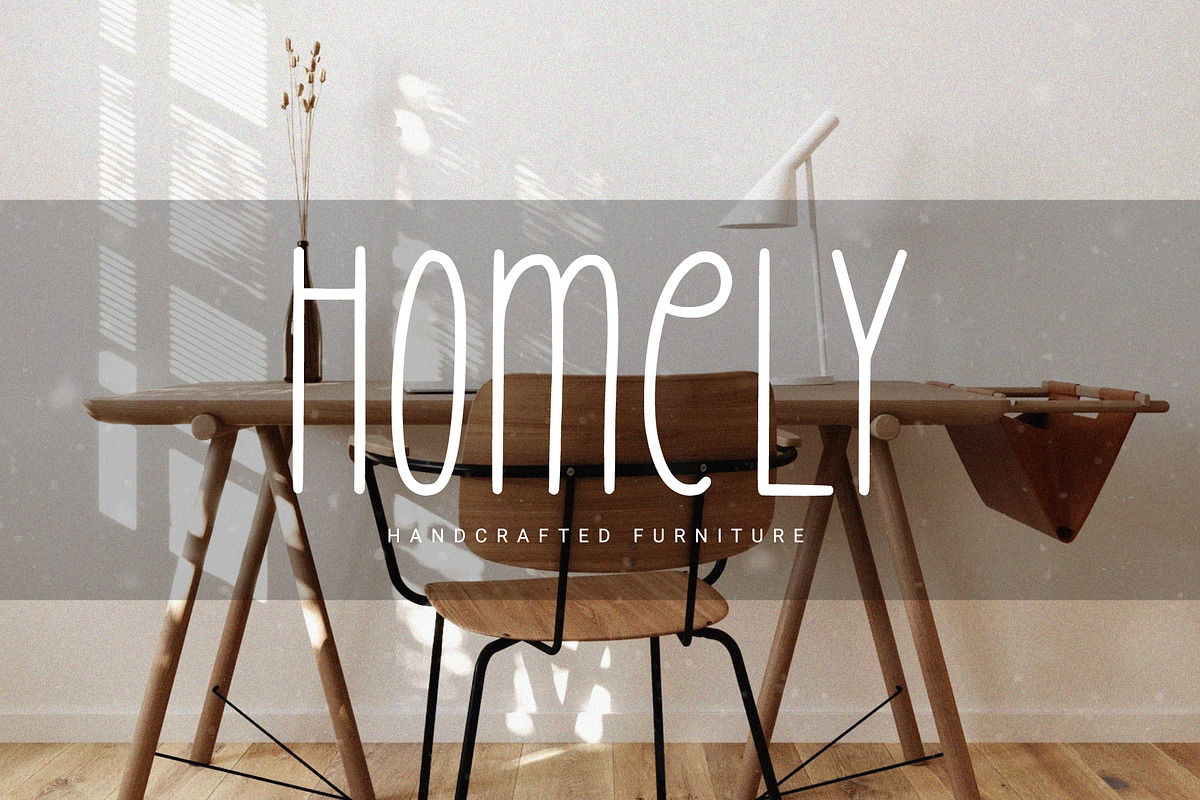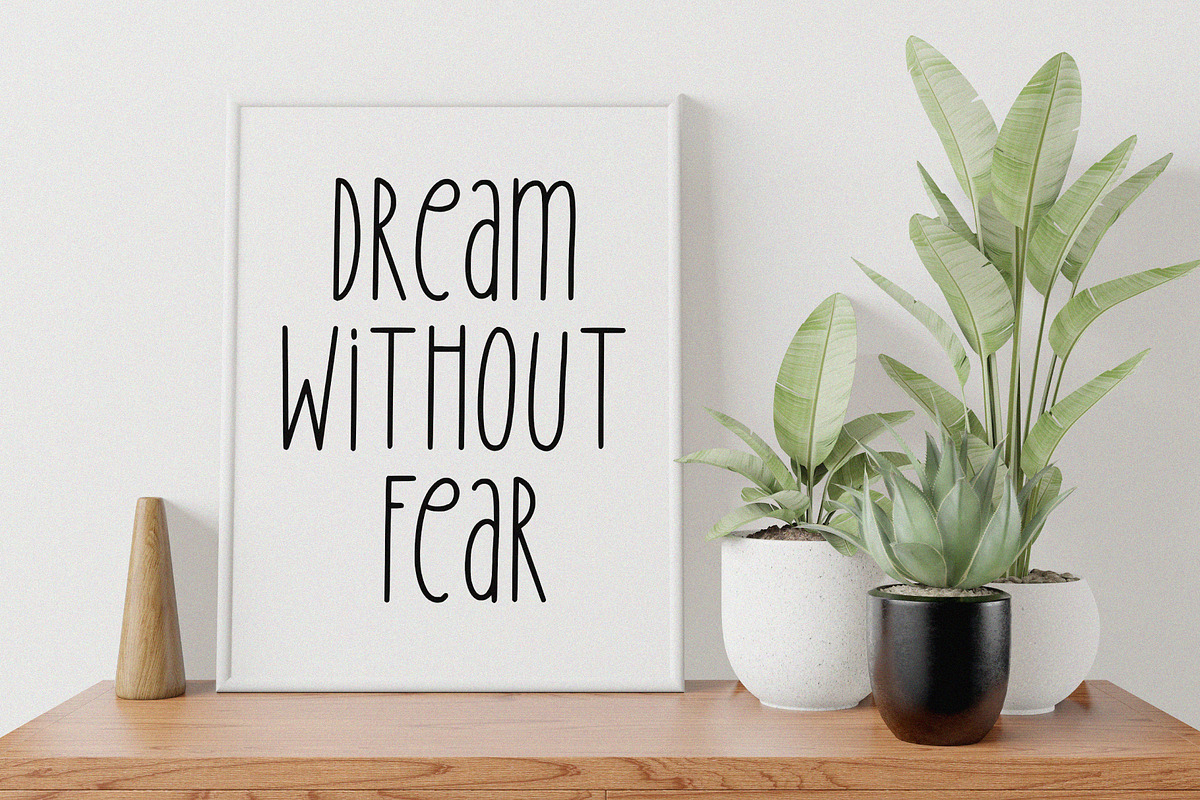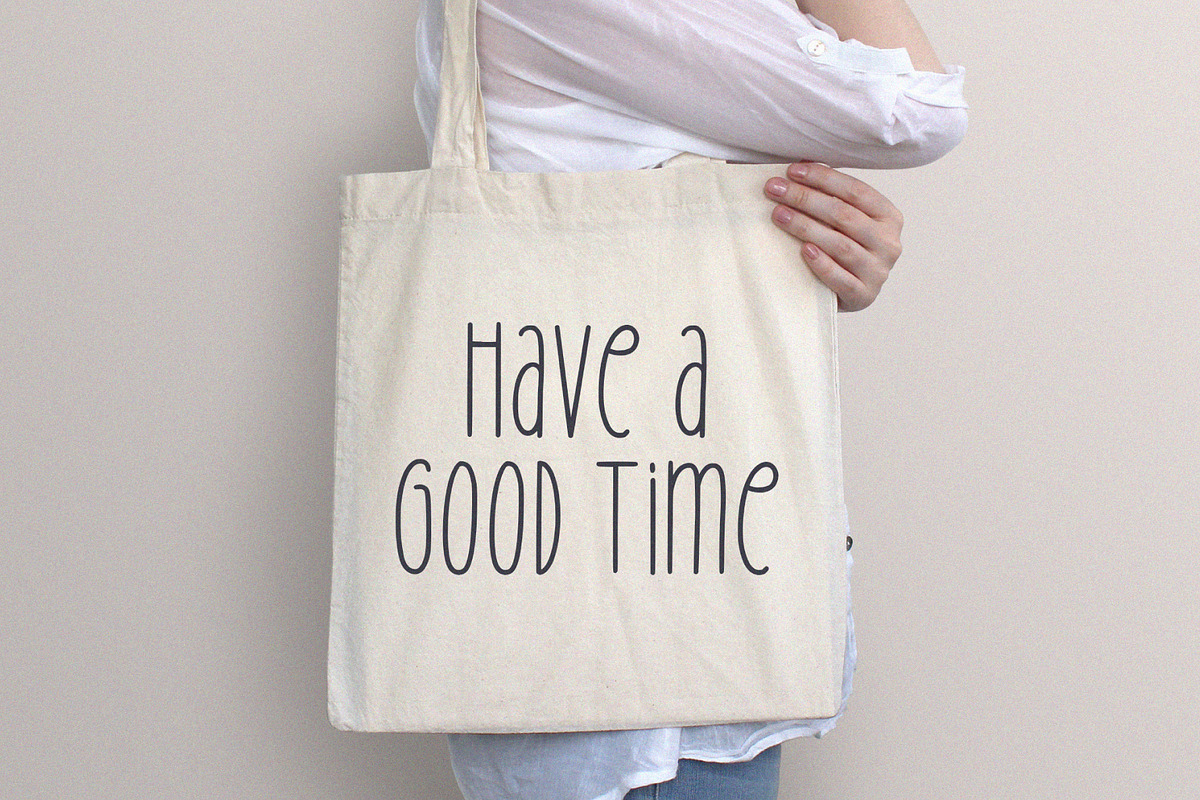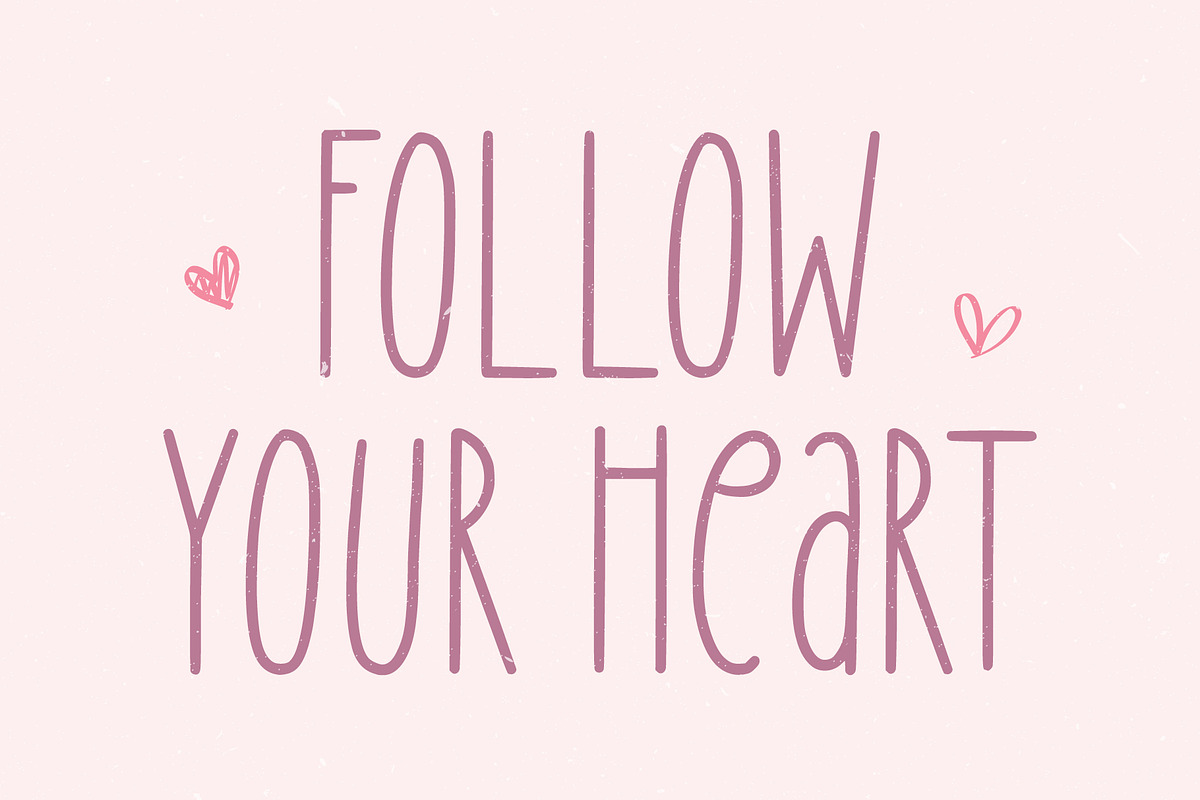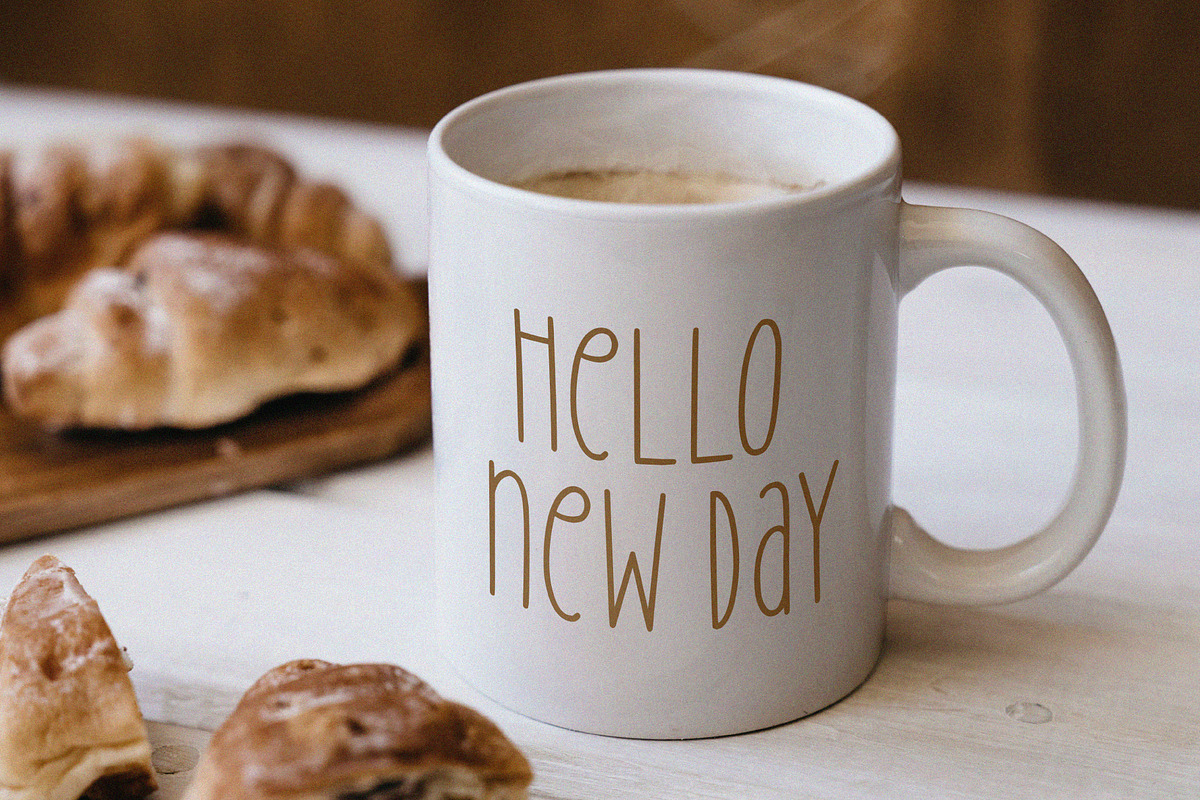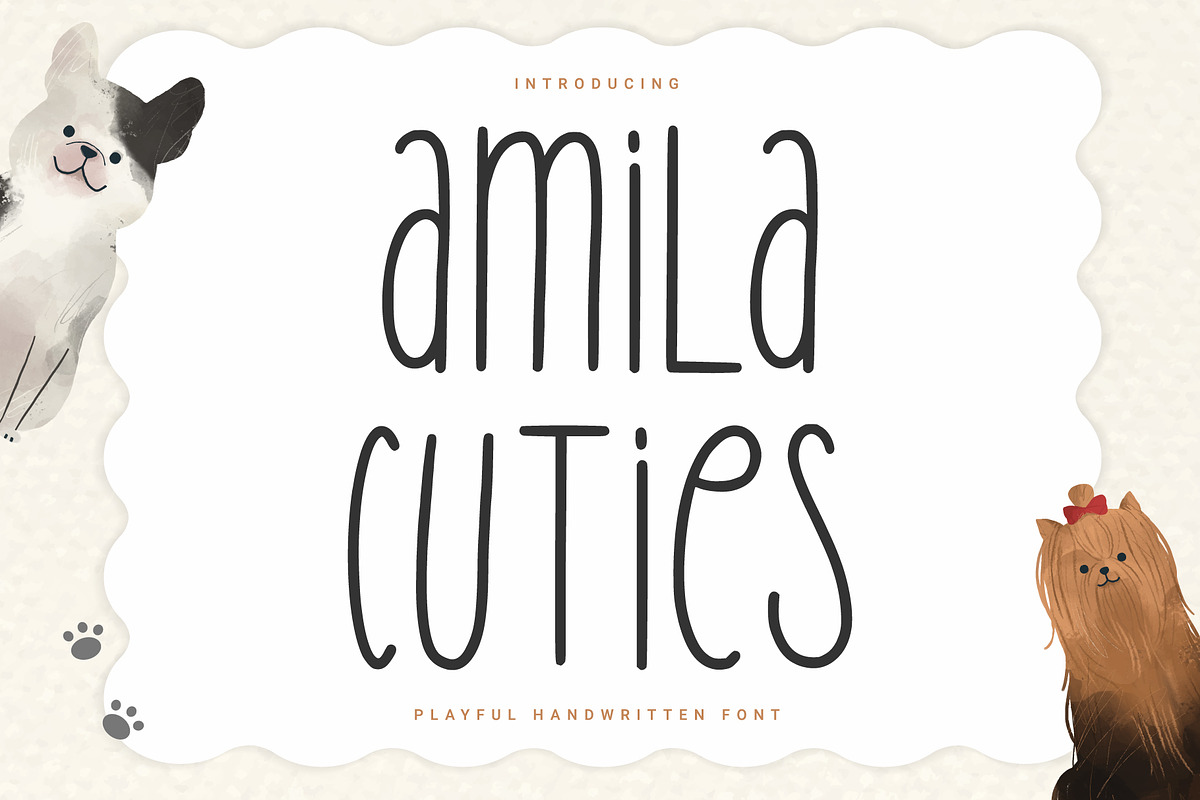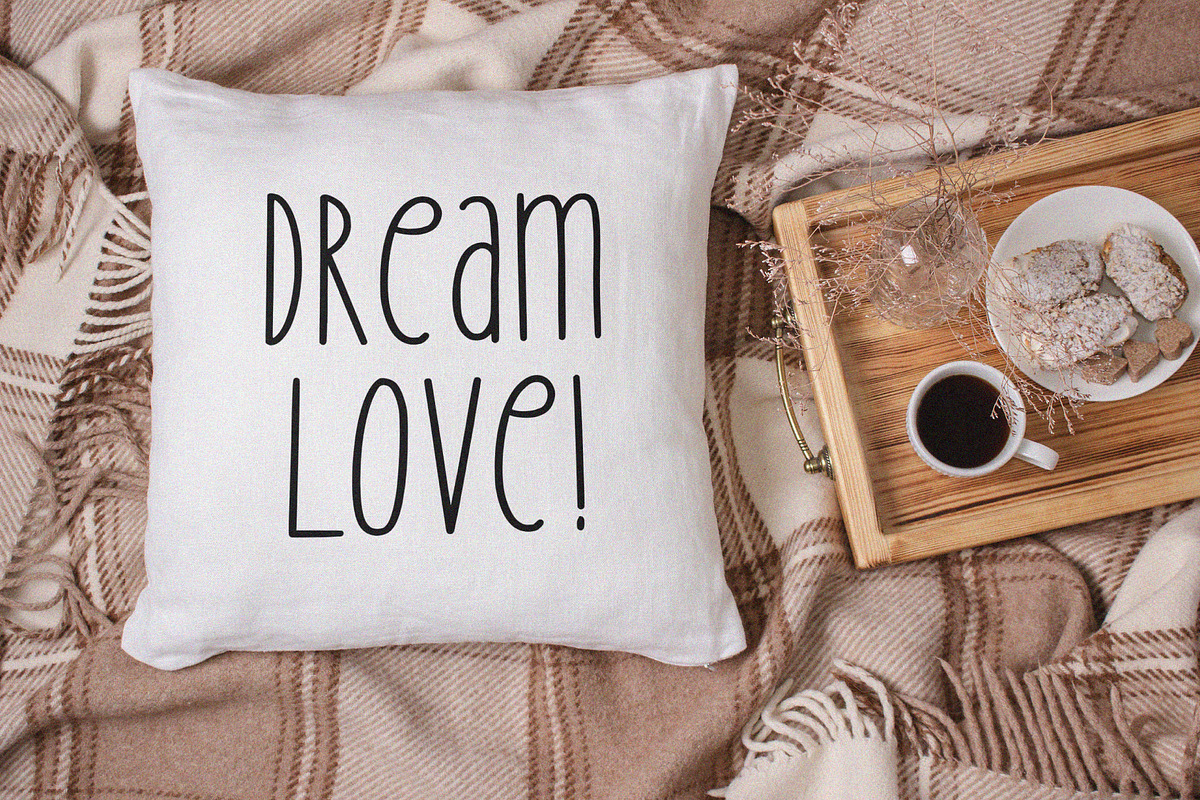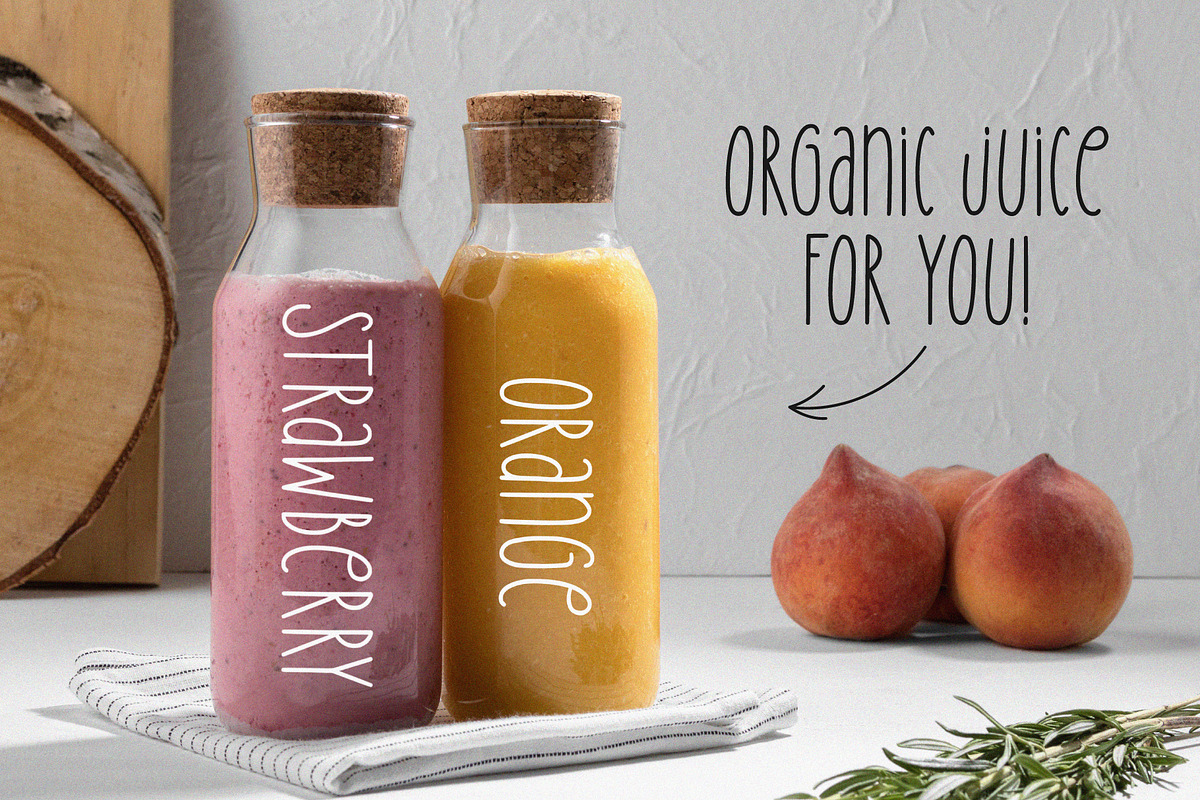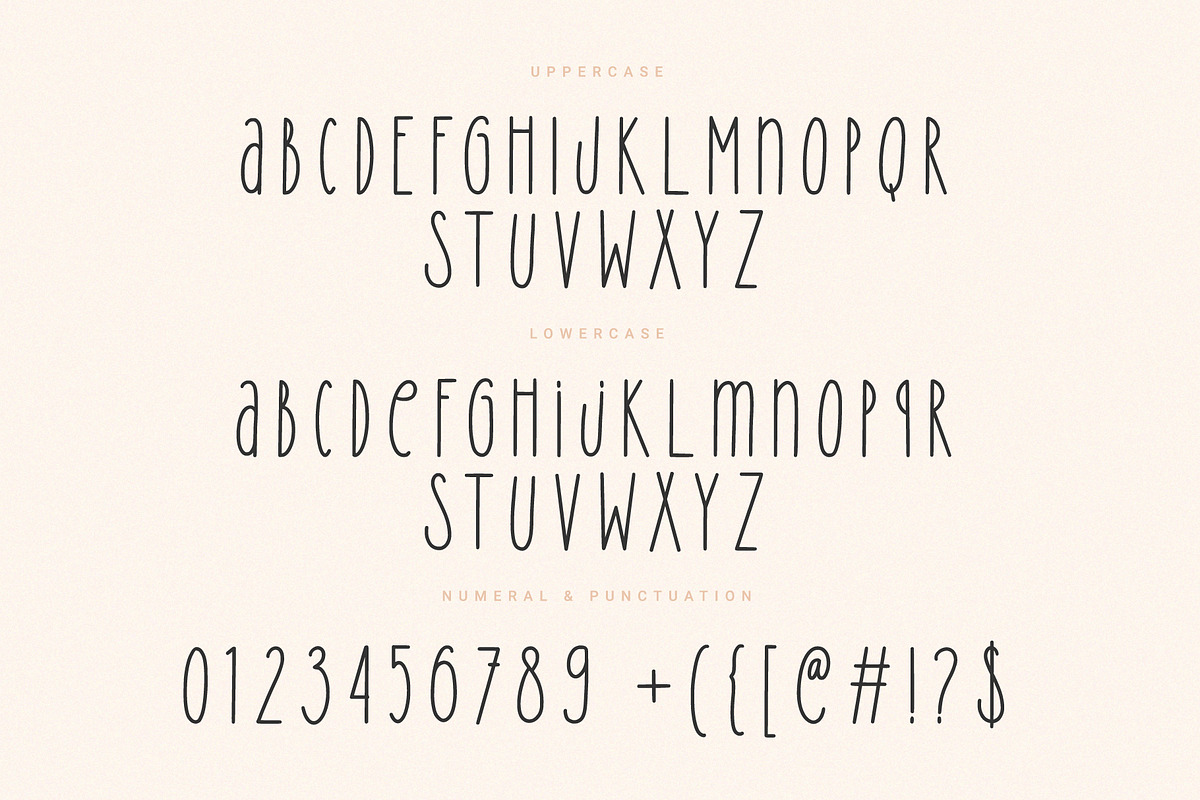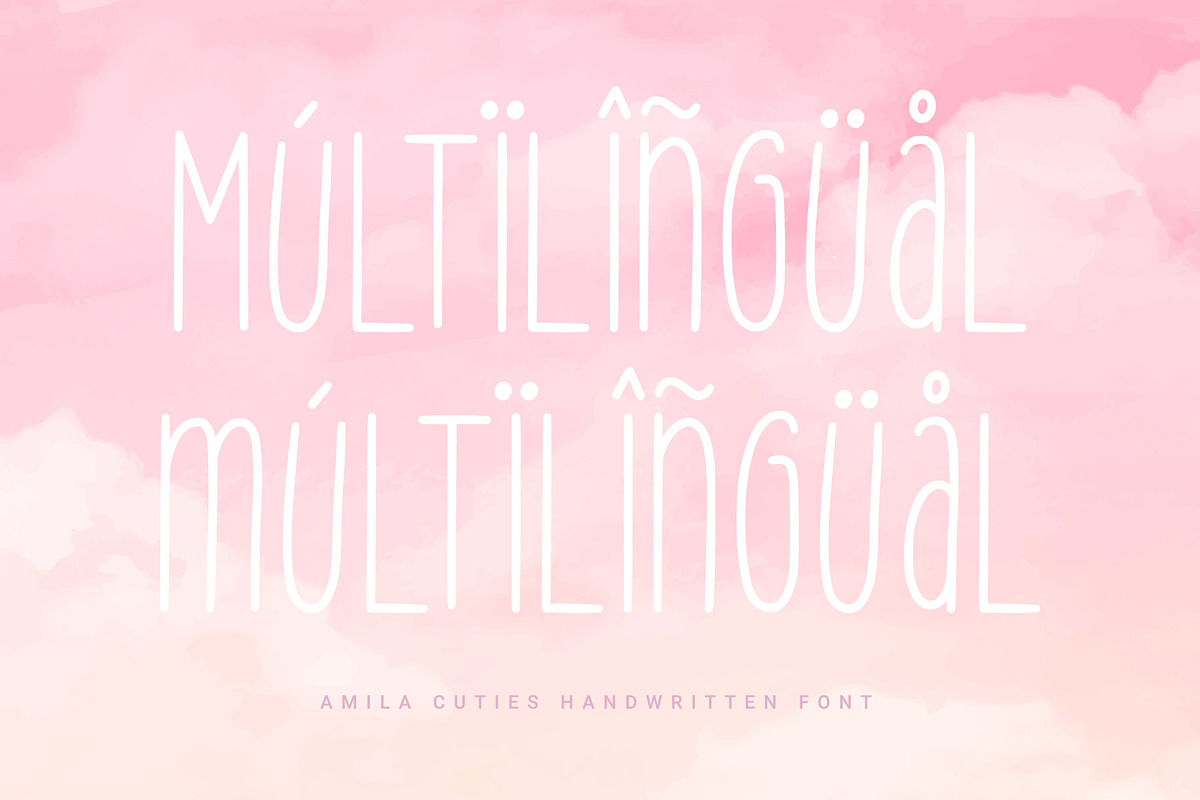
Amila Cuties
Introducing.
Amila Cuties: Cheerful and funny font with a natural impression from hand strokes. Great for design projects like quotes, posters, merchandise, social media posts, covers, and more.
- Features: Uppercase, Lowercase, Numeral, Punctuation & Multilingual.